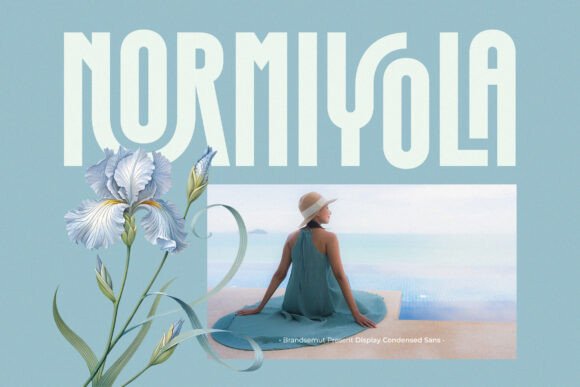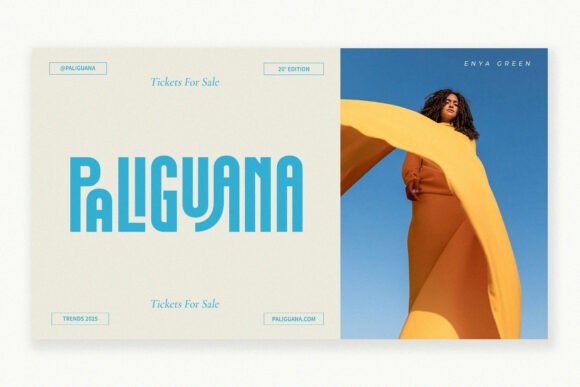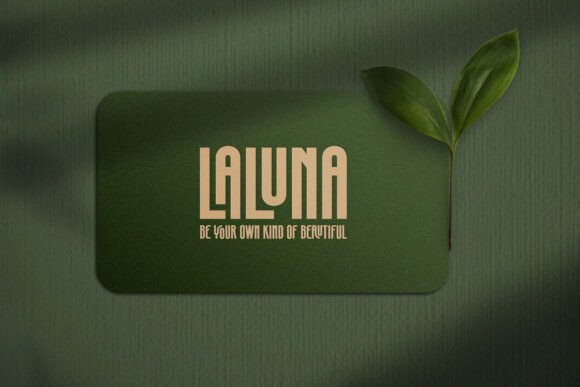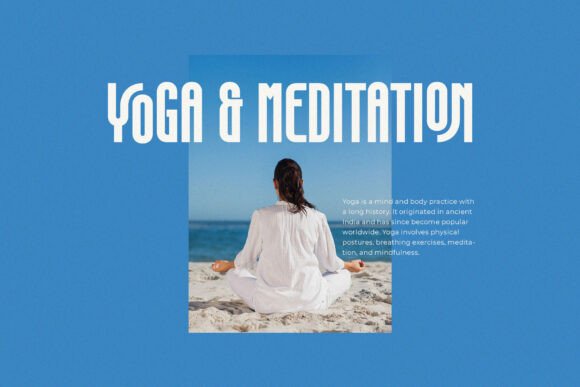
Normiyola Font: Unique Condensed Sans Serif for Modern Logo Design
About the Normiyola Font
Welcome to the world of Normiyola Font, a typeface that will inspire your next great project. Introducing Normiyola Display Condensed Sans.
Normiyola is a modern and unique font, best used as a display for headings, logos, branding, magazines, product packaging and invitations. Normiyola comes with clean lines and smooth curves, giving any project an extra touch of class.
Normiyola’s condensed nature and elegant curves make it ideal for headlines, logos, and short impactful phrases in branding materials and packaging. Its modern aesthetic lends itself well to minimalist designs and projects requiring a touch of sophistication. However, its condensed design makes it unsuitable for body text or lengthy paragraphs, where readability suffers. Avoid using it in user interfaces (UI) where legibility is paramount.
For a balanced pairing, consider using a neutral sans-serif like Open Sans or Lato for body copy, complementing Normiyola’s boldness. Alternatively, a classic serif like Garamond or a slightly more playful script like Great Vibes could create interesting contrast, depending on the desired overall mood.
Normiyola projects a confident, modern, and slightly refined personality. It’s best suited for brands aiming for a sophisticated yet approachable image – think high-end fashion, premium products, or artistic ventures. Avoid pairing it with fonts that are overly ornate or clash with its clean lines.
Normiyola Font Usage Examples
Normiyola Font Example